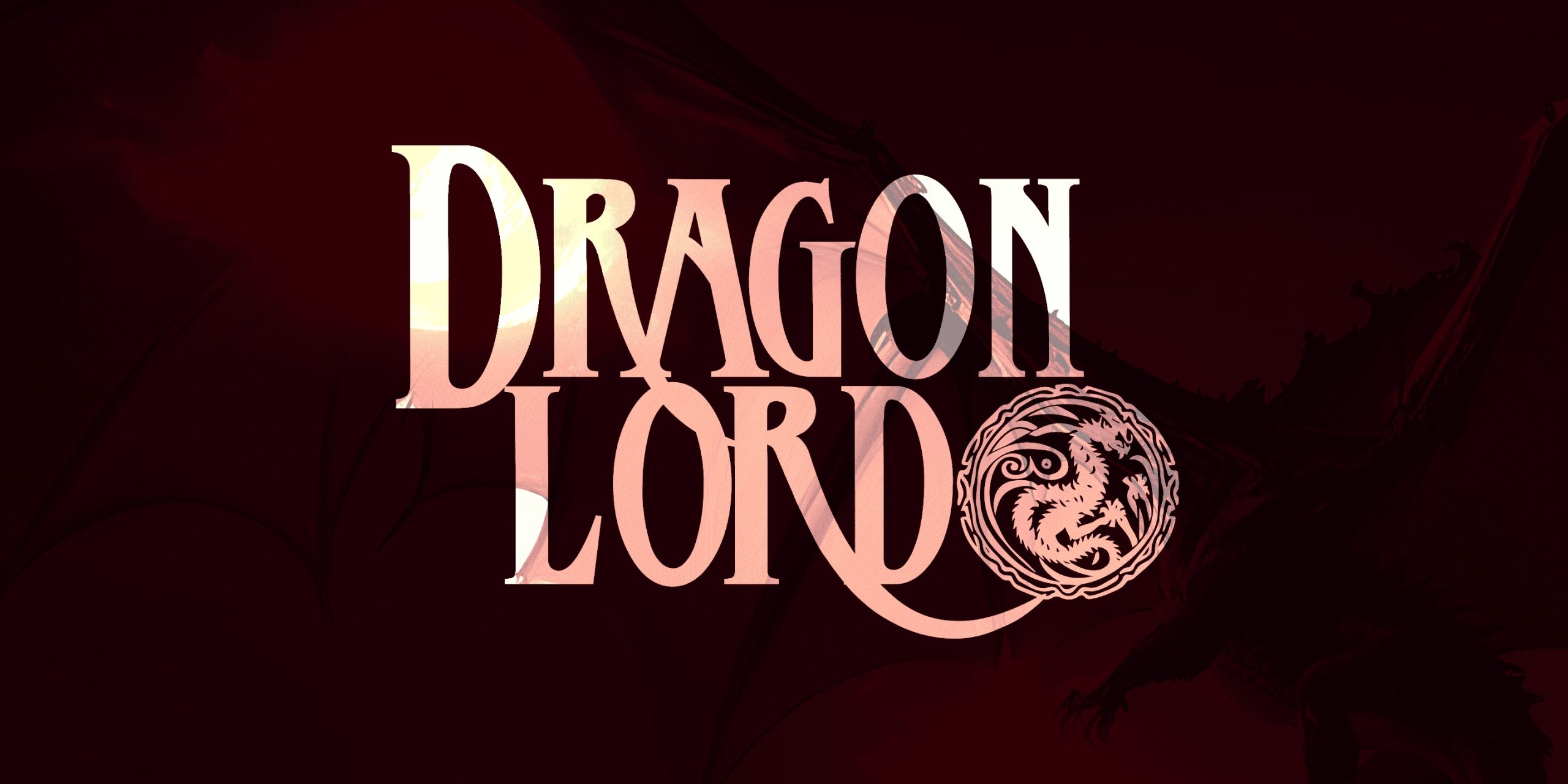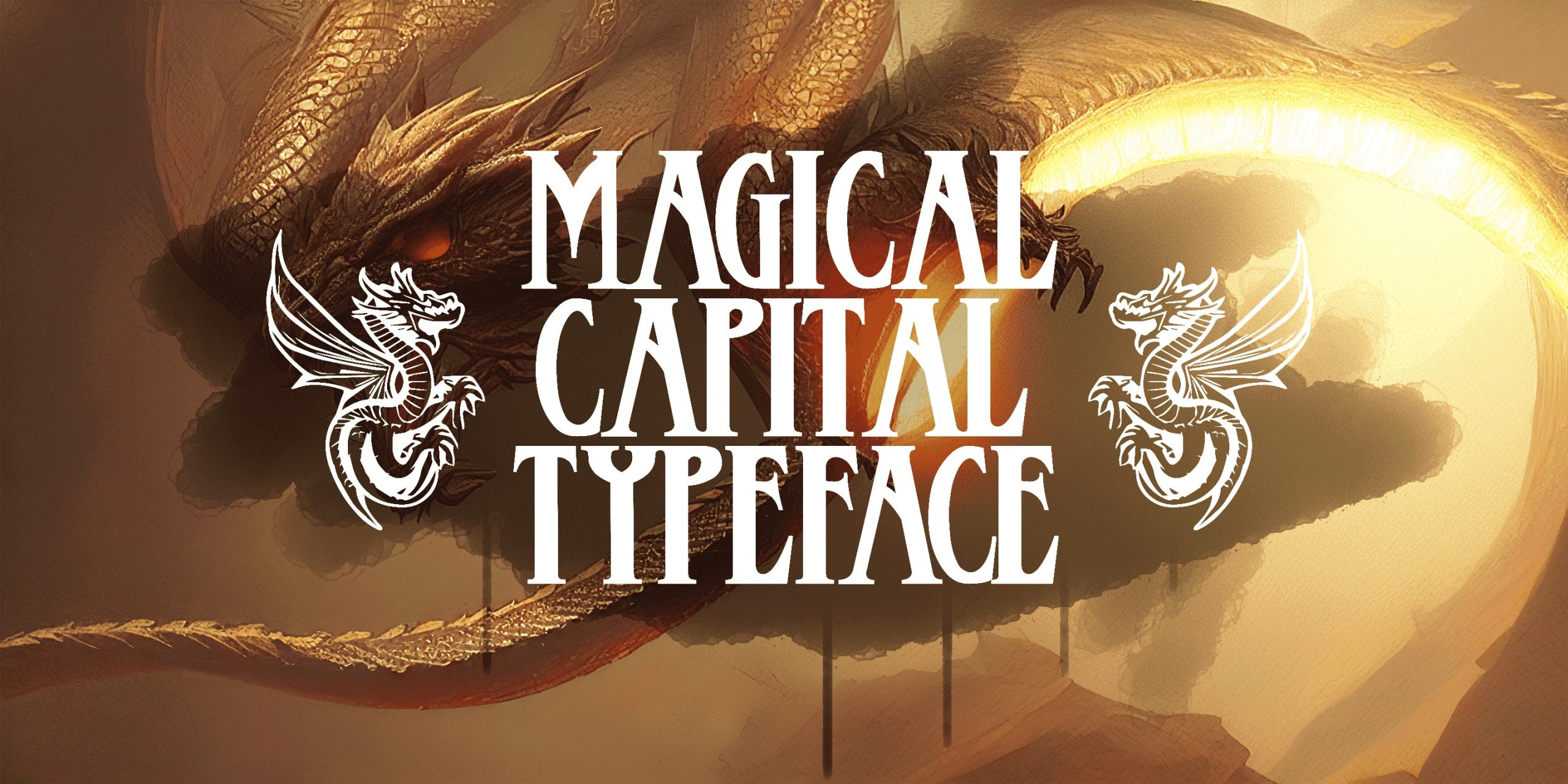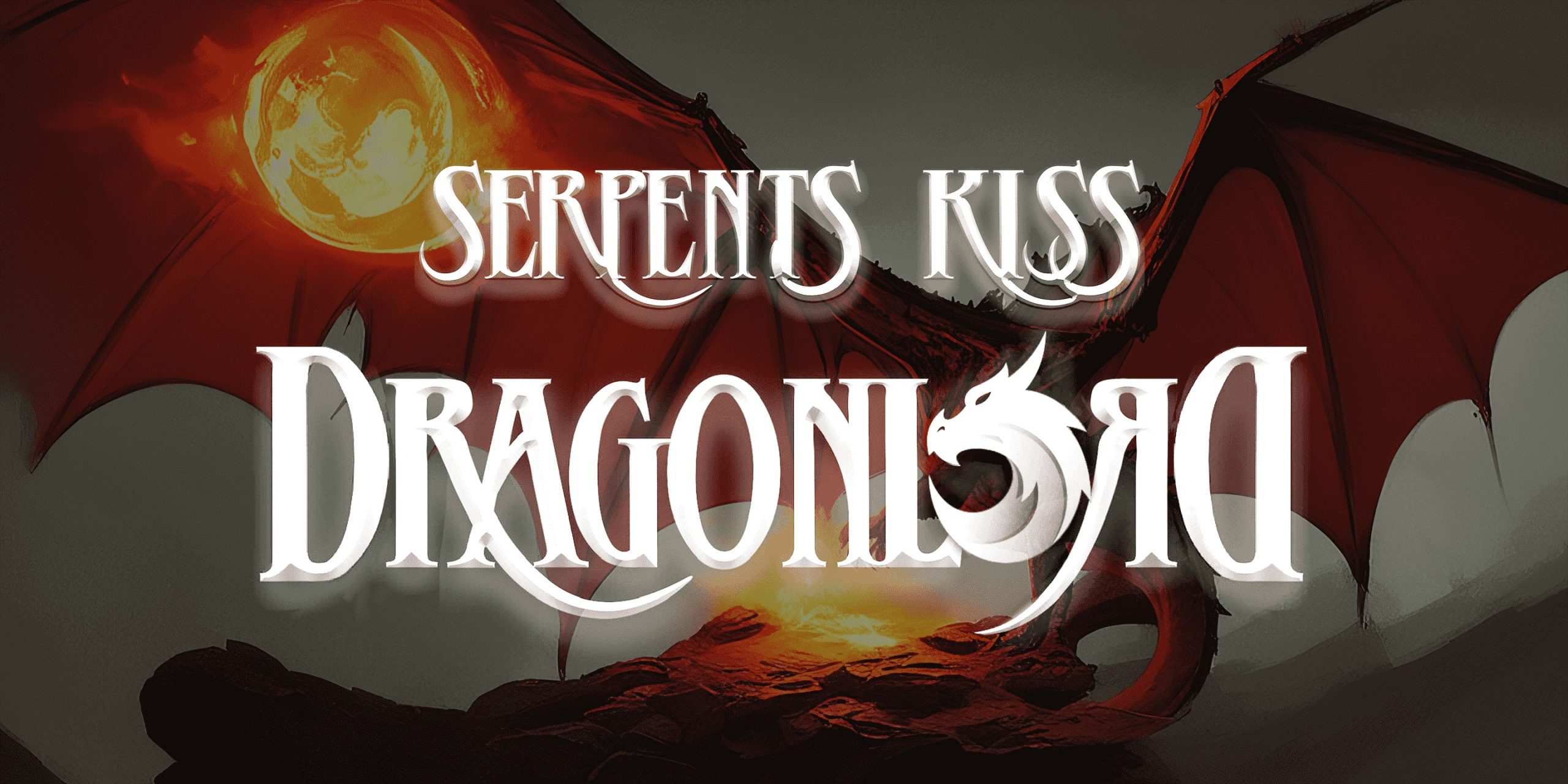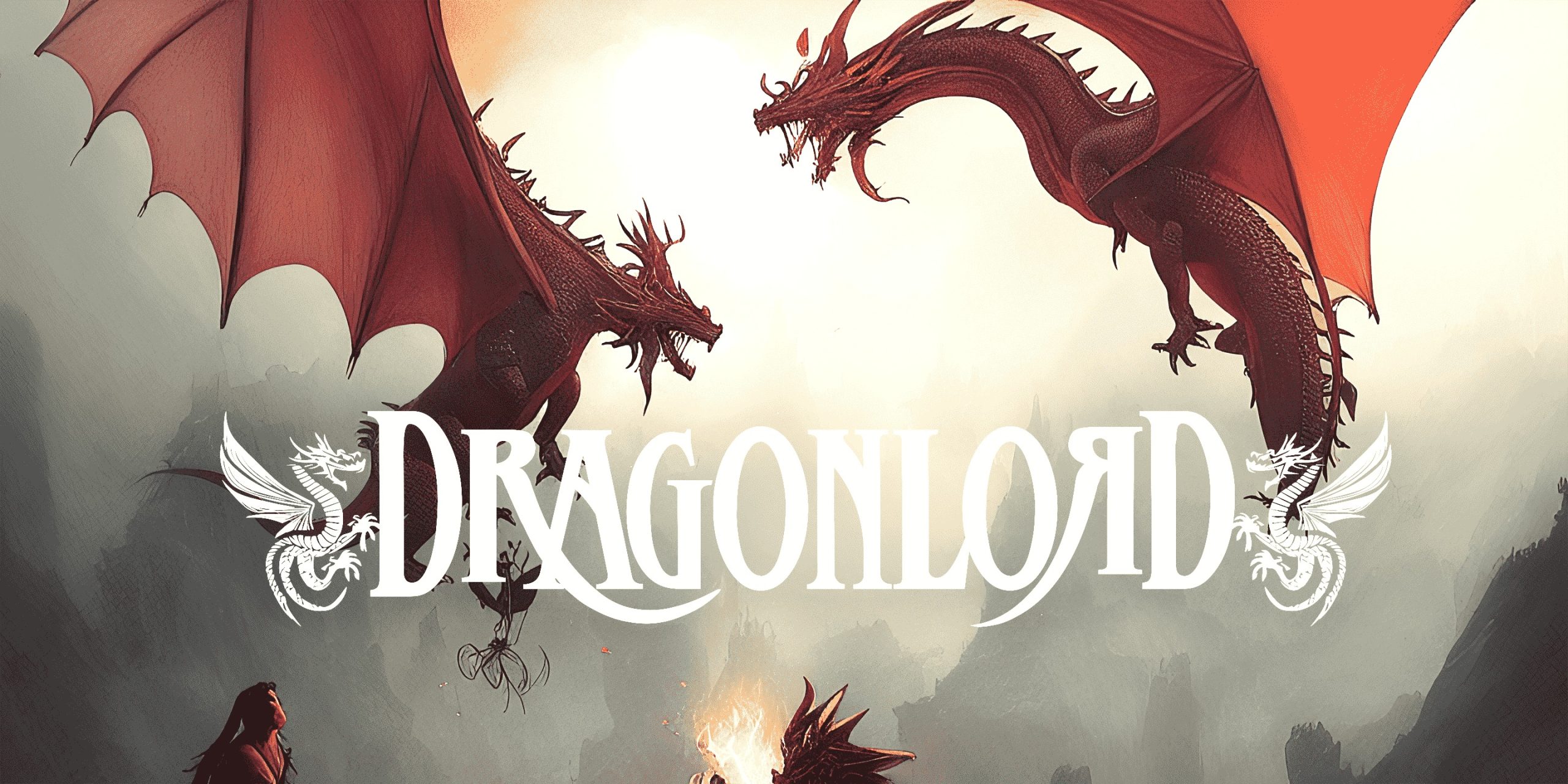
Dragonlord Font
Dragonlord Display Font is a classic serif typeface inspired by medieval typography. Its letters are rough and sharp, giving it a bold and complex personality. Use ( ) < > { } [ ] to make dragon symbols. Example: Magical)Typeface The font is built with advanced OpenType functionality and has a guaranteed top-notch quality, containing stylistic and contextual alternates, ligatures and more features; all to give you full control and customizability. It has extensive lingual support, covering all Latin-based languages, from Northern Europe to South Africa, from America to South-East Asia. It contains all characters and symbols you’ll ever need, including all punctuation and numbers.